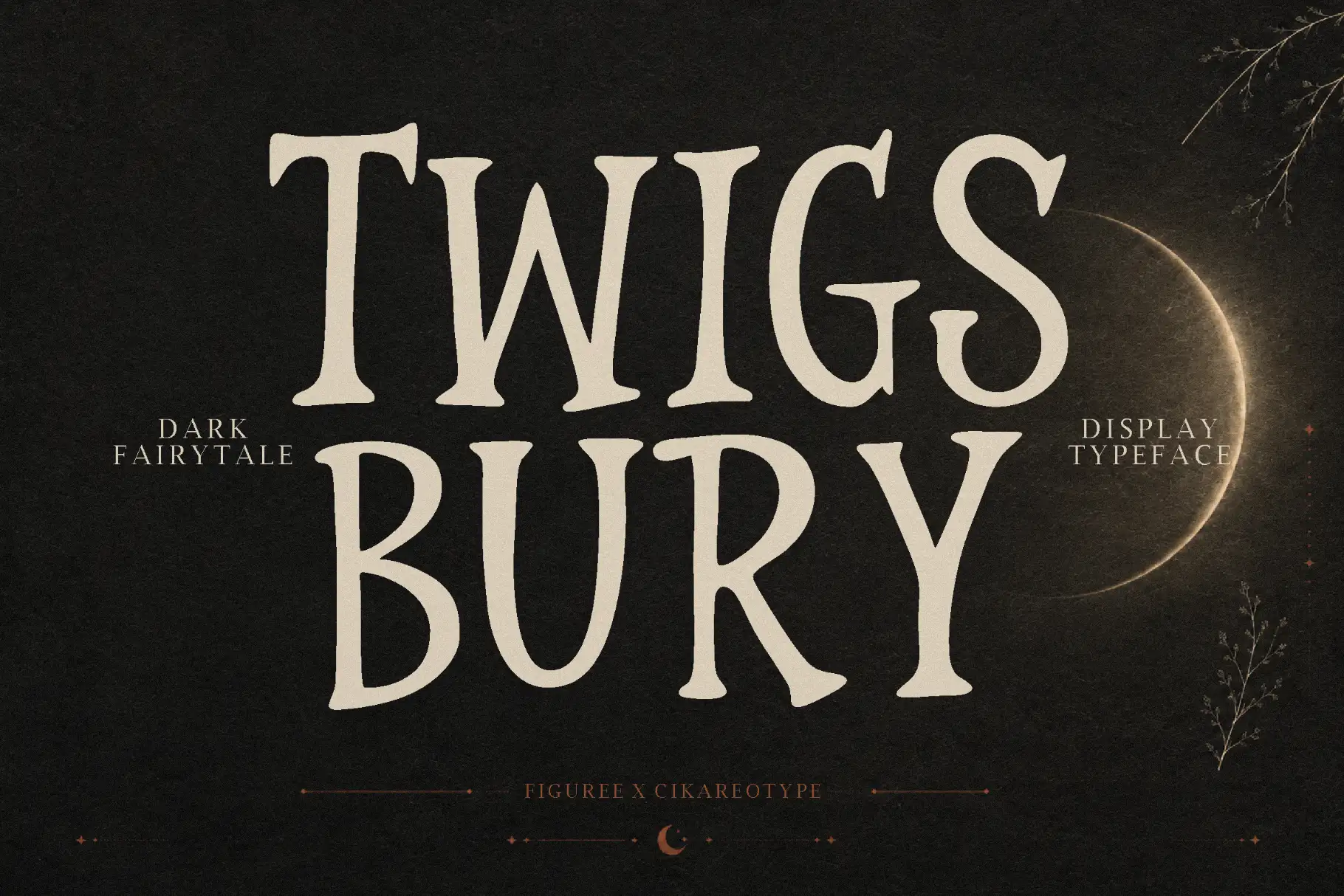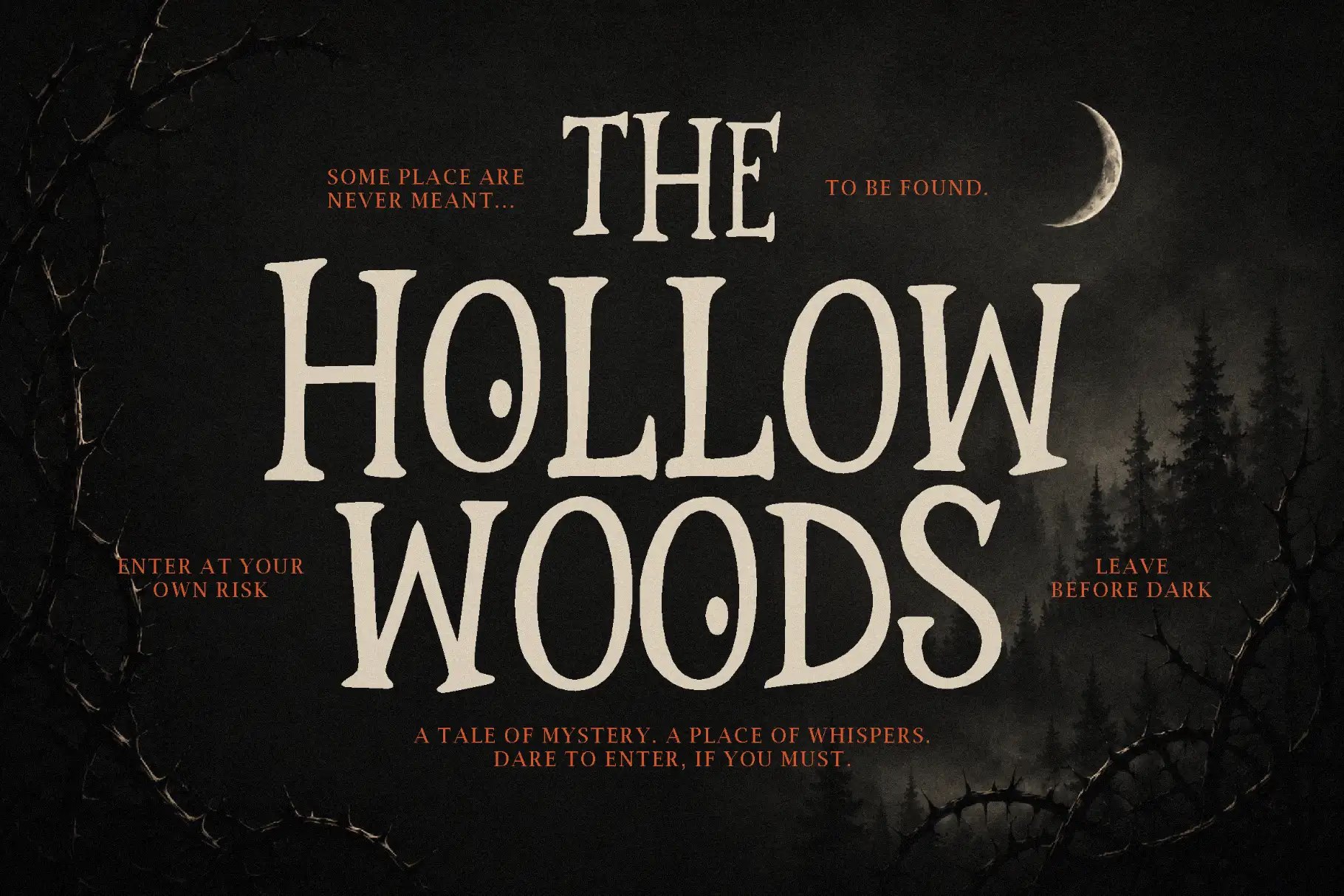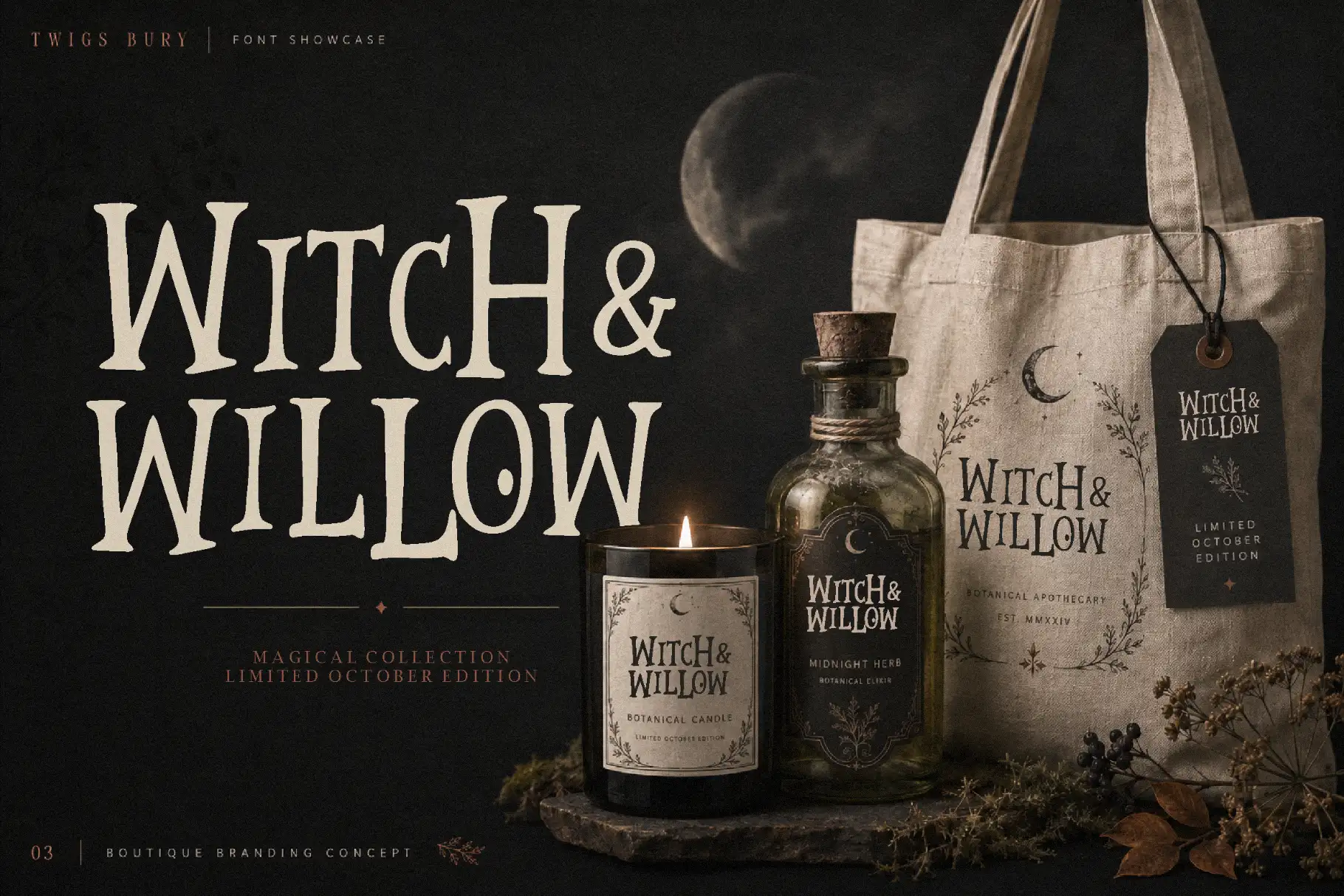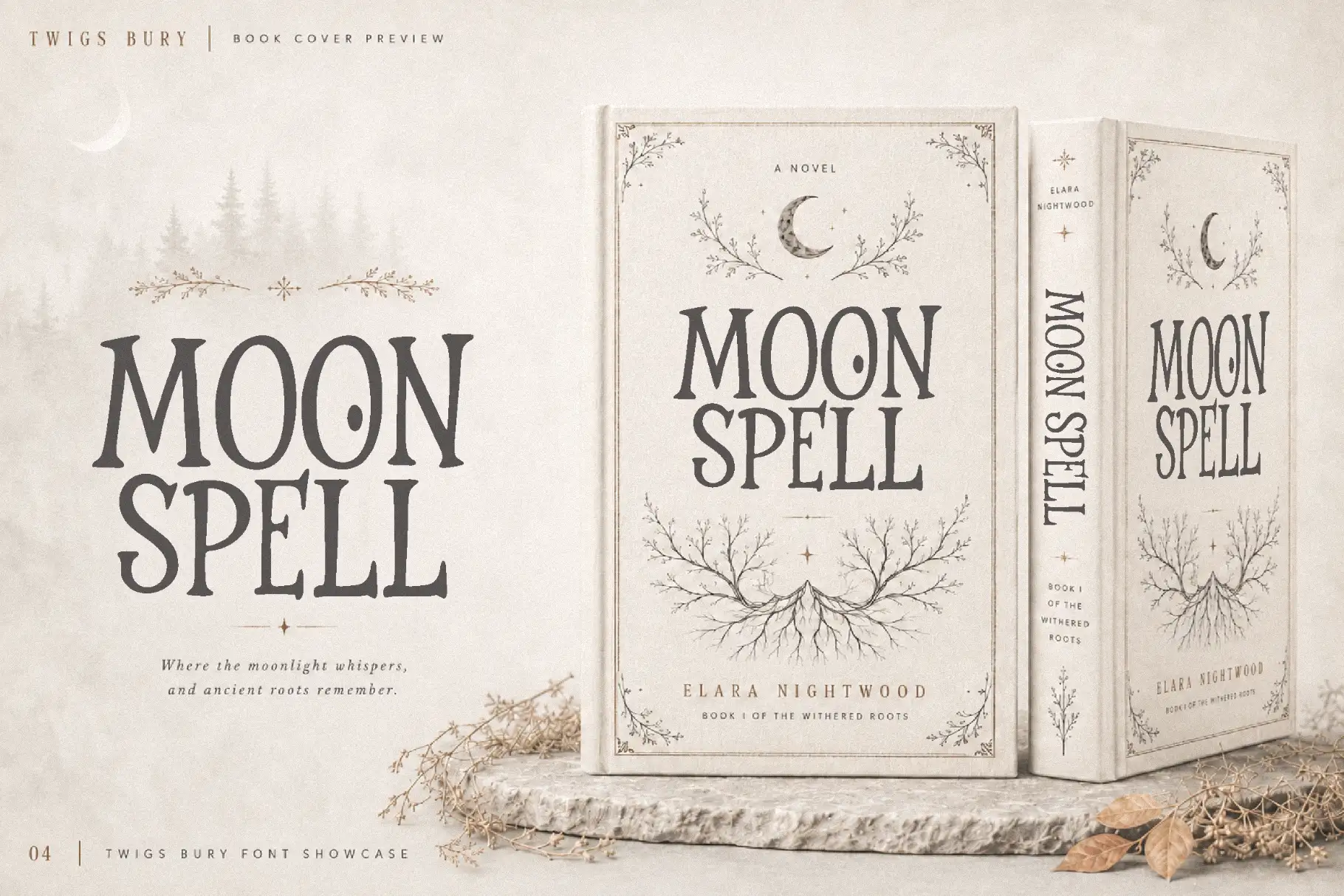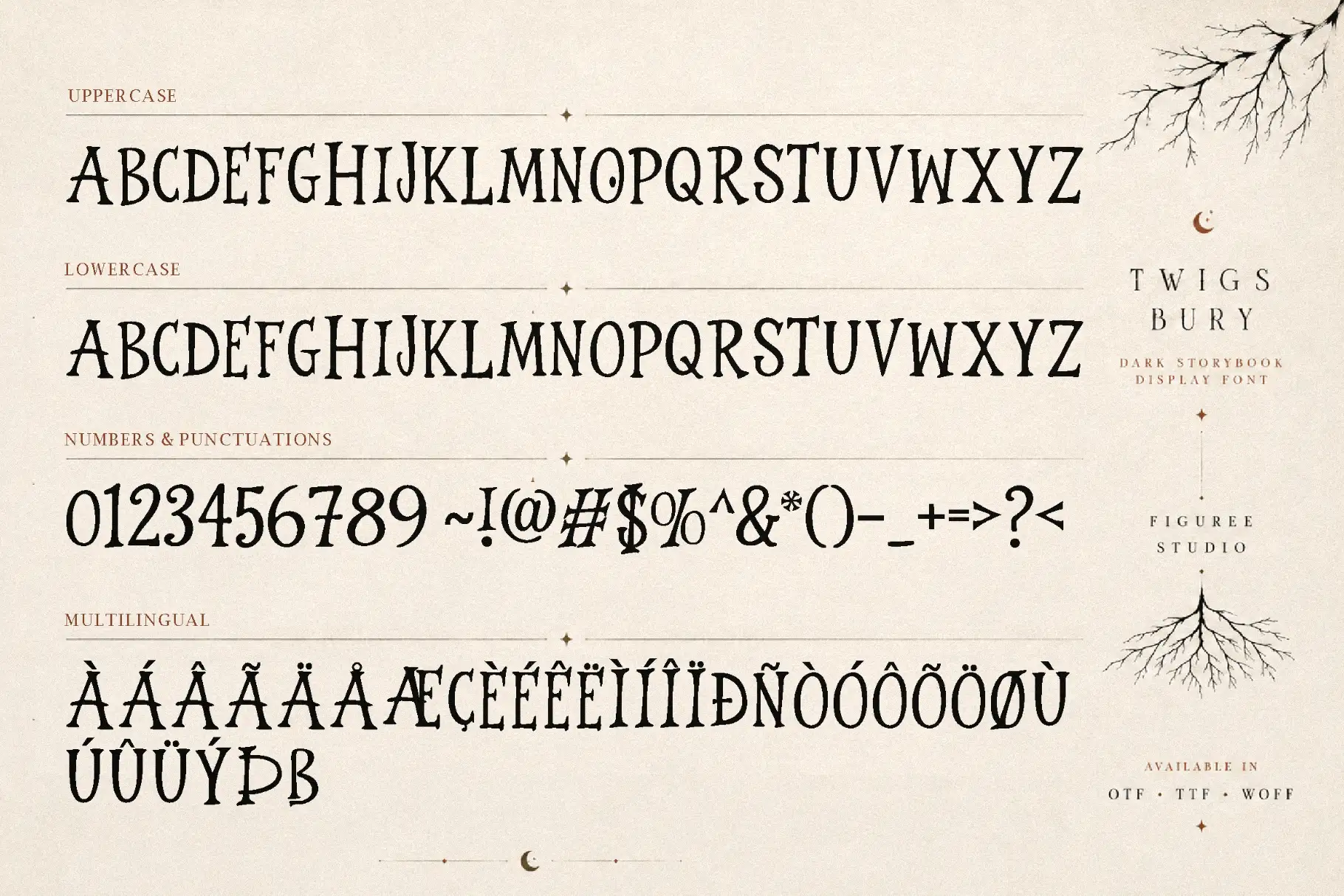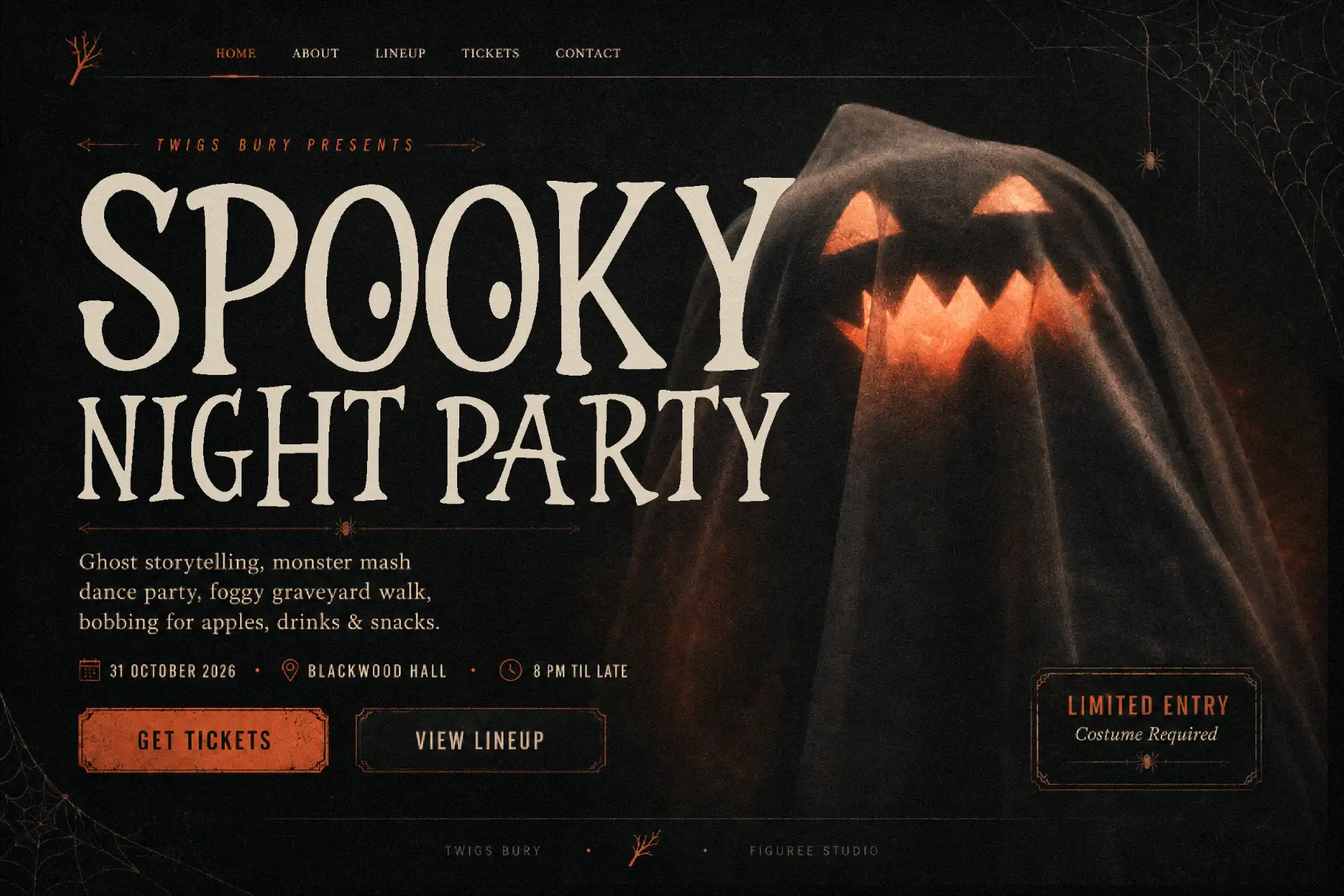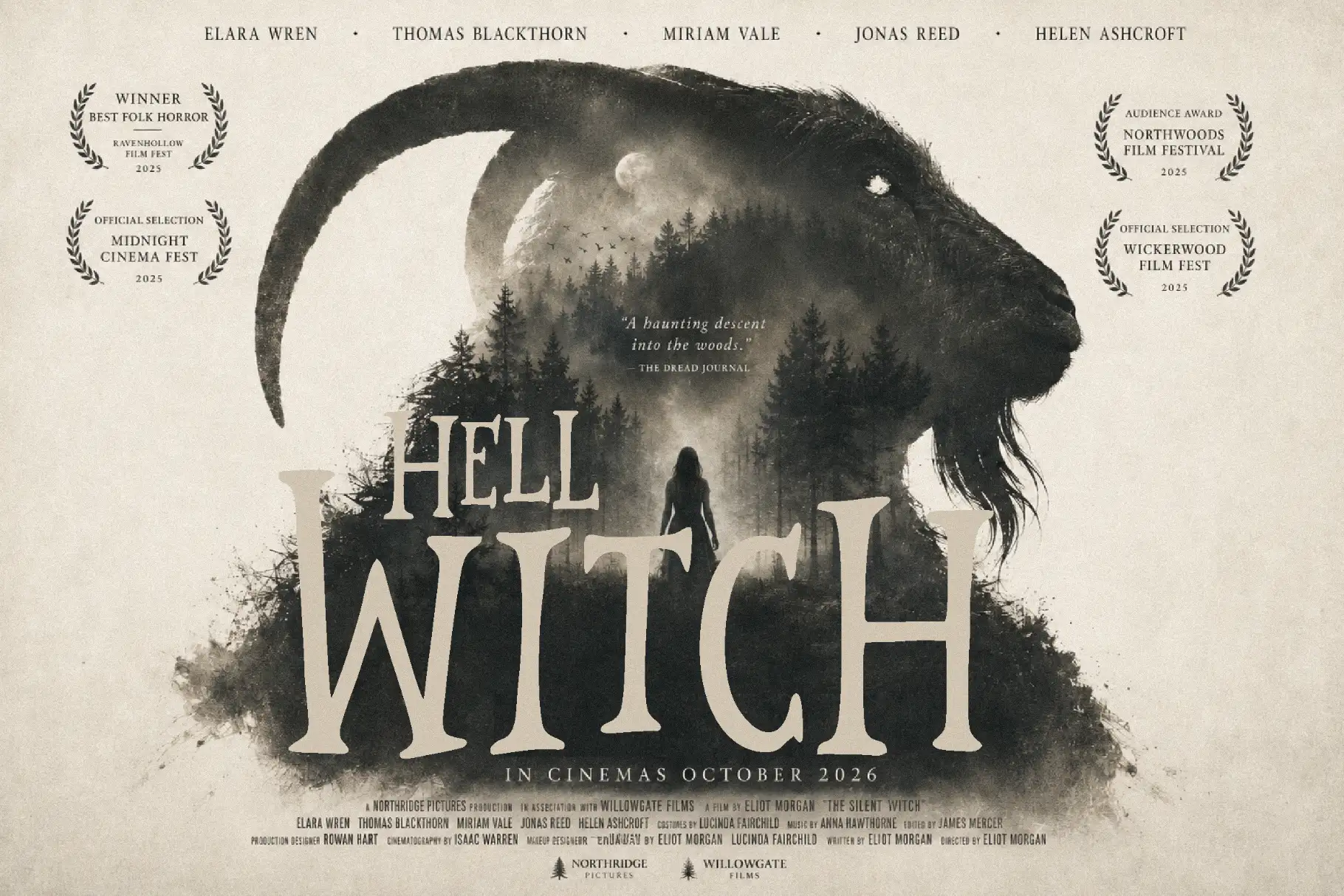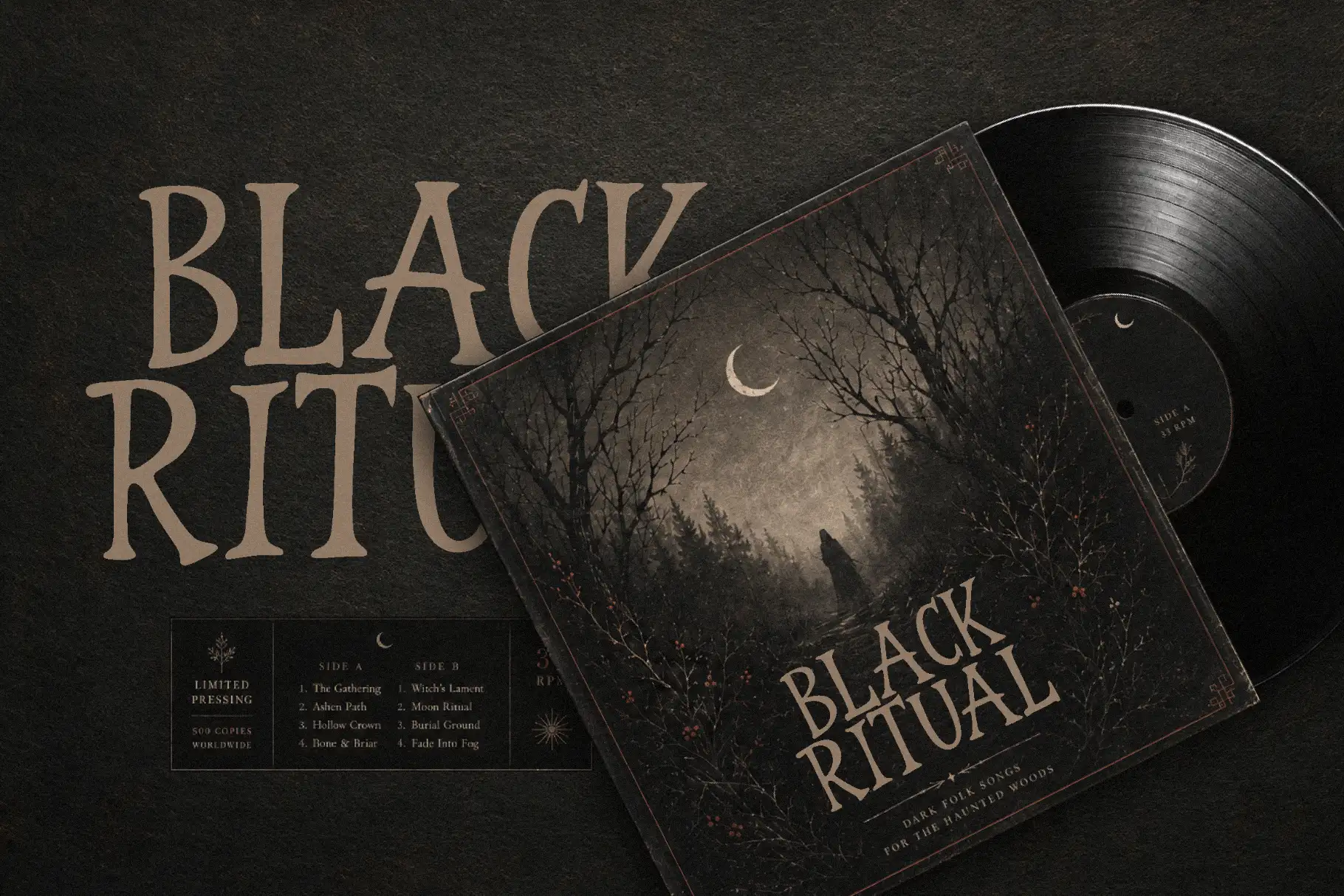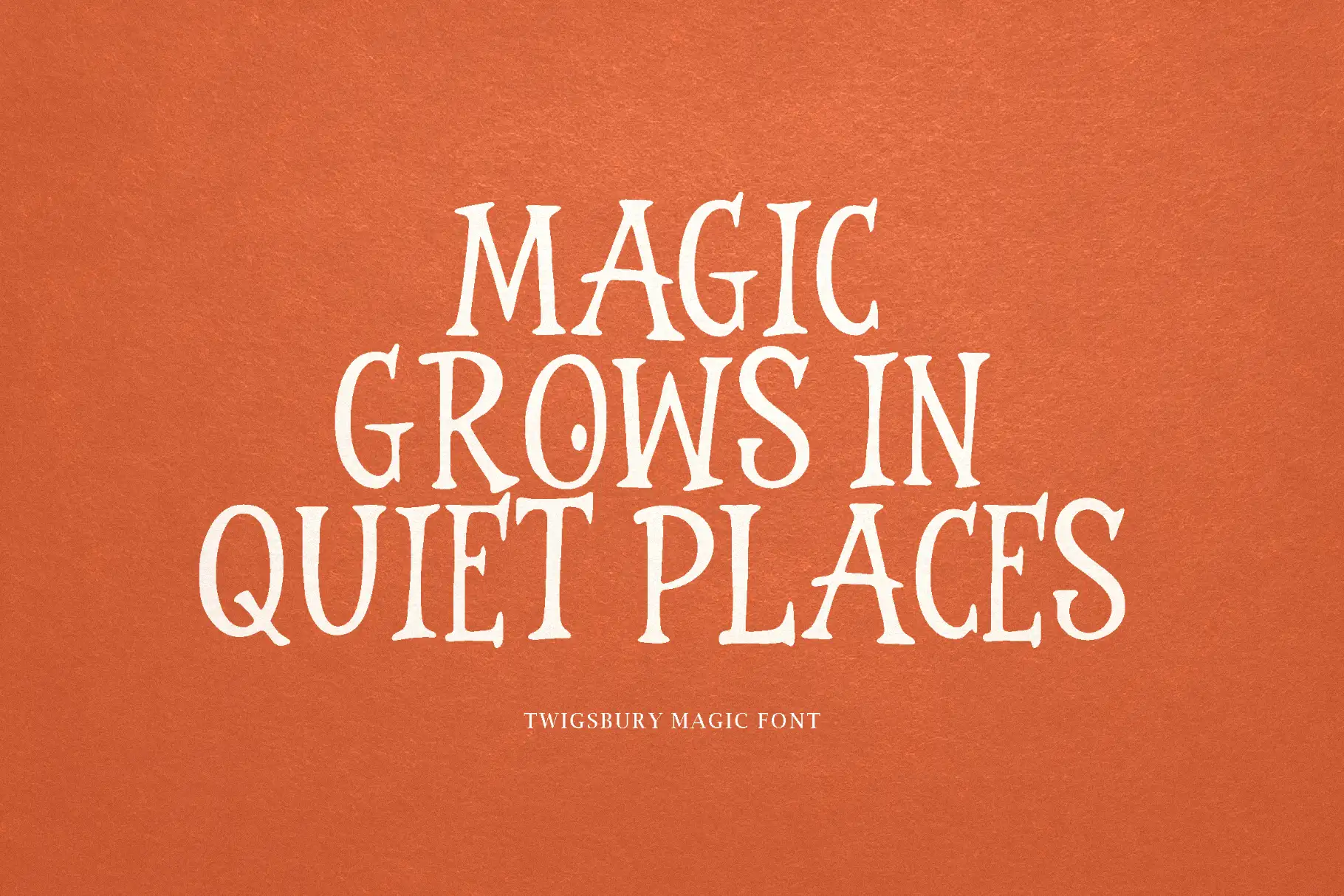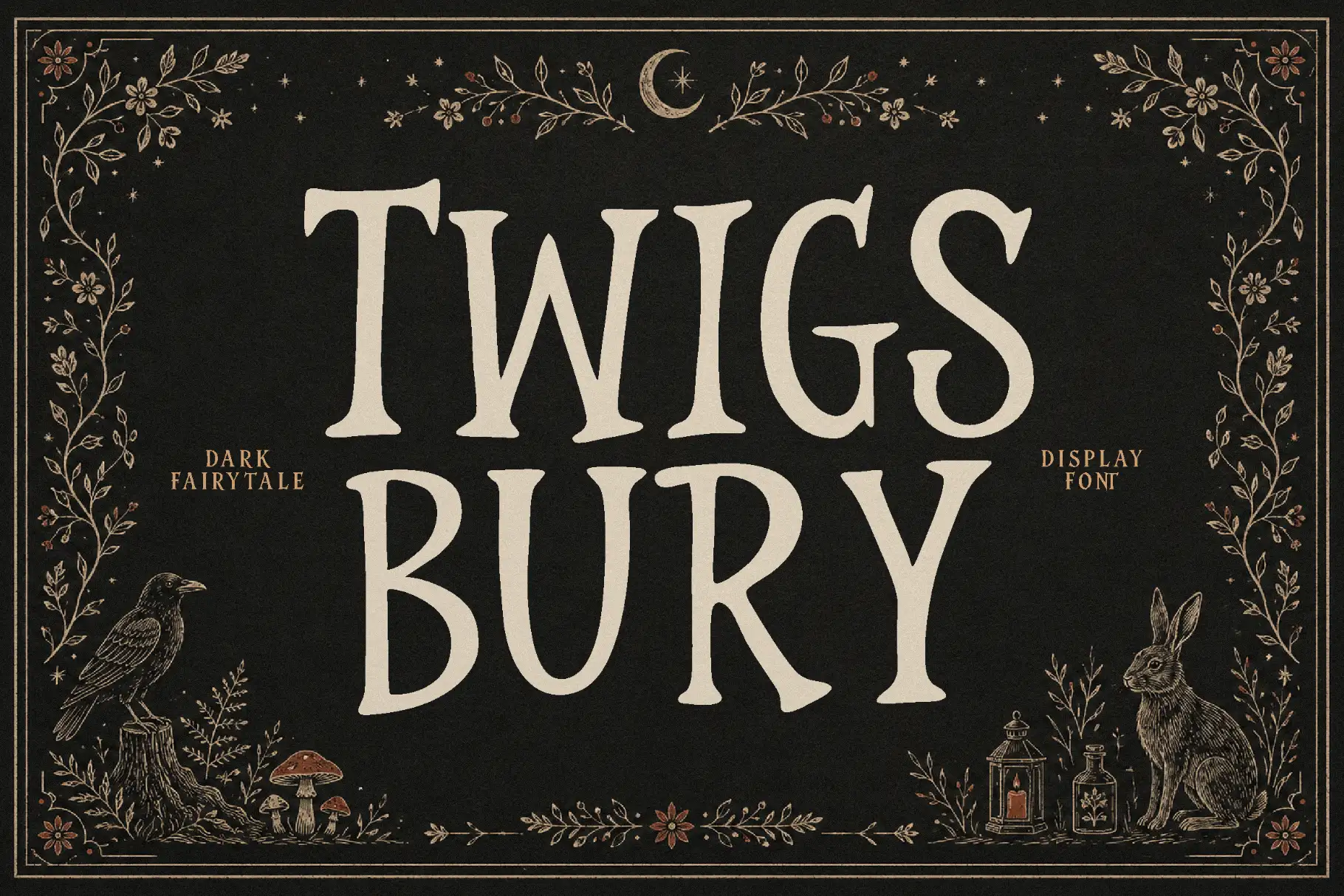
Twigsbury – Dark Fairytale Serif Font
Twigsbury is a dark fairytale serif font created for designs that need mystery, elegance, and a storybook atmosphere. It brings a dramatic serif personality into visual projects that feel enchanted, cinematic, gothic, and slightly untamed.
This font is made for designers who want their typography to feel more than decorative. Twigsbury gives your words a narrative quality, making it suitable for brand identities, book covers, packaging, posters, social media graphics, and creative products with a darker visual direction.
With its all-caps character set, numbers, punctuation, multilingual support, and web-ready file formats, Twigsbury is a practical choice for both print and digital design. It can help a project feel editorial, magical, mysterious, and premium without losing clarity in key display settings.
Twigsbury carries the mood of an old fairytale told under candlelight. It feels elegant, shadowy, and imaginative, making it especially suitable for visual identities that want to stand apart from clean modern minimalism.
The serif style gives it a classic foundation, while the dark fairytale concept makes it feel more expressive and memorable. It can work beautifully for brands and products inspired by fantasy, gothic romance, folklore, haunted beauty, handmade goods, boutique experiences, and mysterious storytelling.
Because Twigsbury is built around all-caps characters, it is best used where typography needs presence. Think cover titles, logo marks, packaging names, poster headlines, label design, and short powerful phrases. It is not meant to disappear quietly into the background. It is made to set the mood.
For designers working with atmospheric visuals, Twigsbury can become the central voice of the composition. Pair it with textured photography, botanical illustrations, antique frames, moonlit color palettes, deep greens, black, ivory, burgundy, gold, or parchment-inspired backgrounds to create a strong editorial look.
Best Use Cases for a Dark Fairytale Serif Font
Twigsbury is ideal for projects that need a magical, gothic, or story-led tone. It can support branding for candle makers, perfume brands, boutique studios, apothecary-inspired labels, dark romance projects, fantasy authors, creative shops, and seasonal collections.
For book cover design, Twigsbury can help build immediate atmosphere. It works well for fantasy, dark fairytale, gothic fiction, mystery, folklore, poetry, and magical storytelling themes. Its all-caps nature makes titles feel intentional and visually strong.
For packaging, Twigsbury can add a handcrafted yet premium character to products such as candles, soaps, teas, journals, perfumes, stationery, artisan goods, and boutique gift items. It gives the product name a more distinctive identity, especially when the brand wants to feel moody, elegant, and memorable.
For digital creators, Twigsbury can be used for social media posts, Pinterest graphics, digital product covers, printable wall art, and quote-based designs. It gives short text a dramatic presence, making it useful for visual content that needs emotion and style.
Key Features
• Dark fairytale serif font style
• All-caps characters
• Numbers included
• Punctuation included
• Multilingual support
• Suitable for print and digital design
Designers love fonts that instantly create direction. Twigsbury gives a project a clear visual mood from the first word. Instead of feeling plain or expected, it adds a sense of mystery and storytelling that can guide the whole design system.
For brand designers, Twigsbury can help shape a memorable identity for clients who want something more atmospheric. It works well when a logo, packaging system, or campaign needs to feel boutique, magical, gothic, or editorial.
For packaging designers, it brings strong shelf presence. A good display font can help a label feel more intentional, especially when the product belongs in a premium, handmade, or story-driven category. Twigsbury can make a product name feel like part of a larger world.
For content creators and digital product sellers, Twigsbury helps create covers, quote graphics, and promotional visuals with a distinctive personality. Its dark fairytale mood is especially useful for seasonal launches, fantasy-inspired collections, Halloween visuals, gothic romance themes, and mysterious lifestyle branding.
For crafters and small business owners, it offers a stylish way to make handmade products feel more branded. Use it for labels, tags, stickers, printable artwork, journal covers, and boutique packaging where the typography needs to carry emotion.
Twigsbury is made for designers, makers, and brand owners who want typography with atmosphere. Use this dark fairytale serif font to create visual work that feels mysterious, elegant, and story-rich from the very first glance.